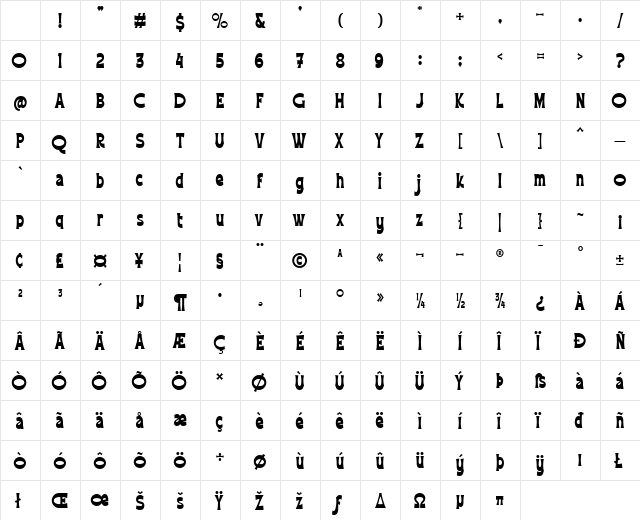
Complete Abhartach DEMO Regular glyph index. Displaying only characters natively supported by Abhartach DEMO Regular font.
Abhartach DEMO is a composed and adaptable typeface that performs quietly and consistently across a wide range of design contexts.